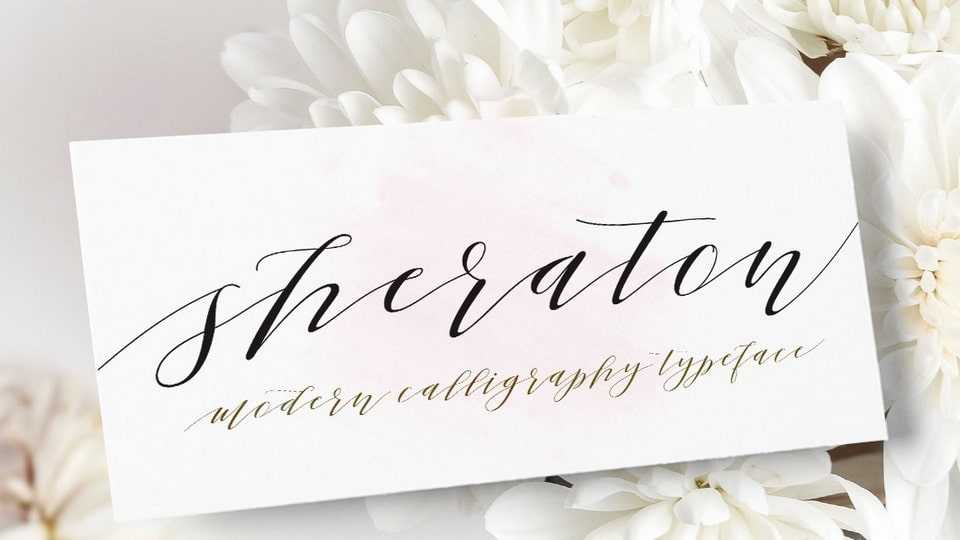
Download Sheraton font, a lovely, modern calligraphic script. This versatile script font has a wide spectrum of applications ranging from greeting cards to headlines.